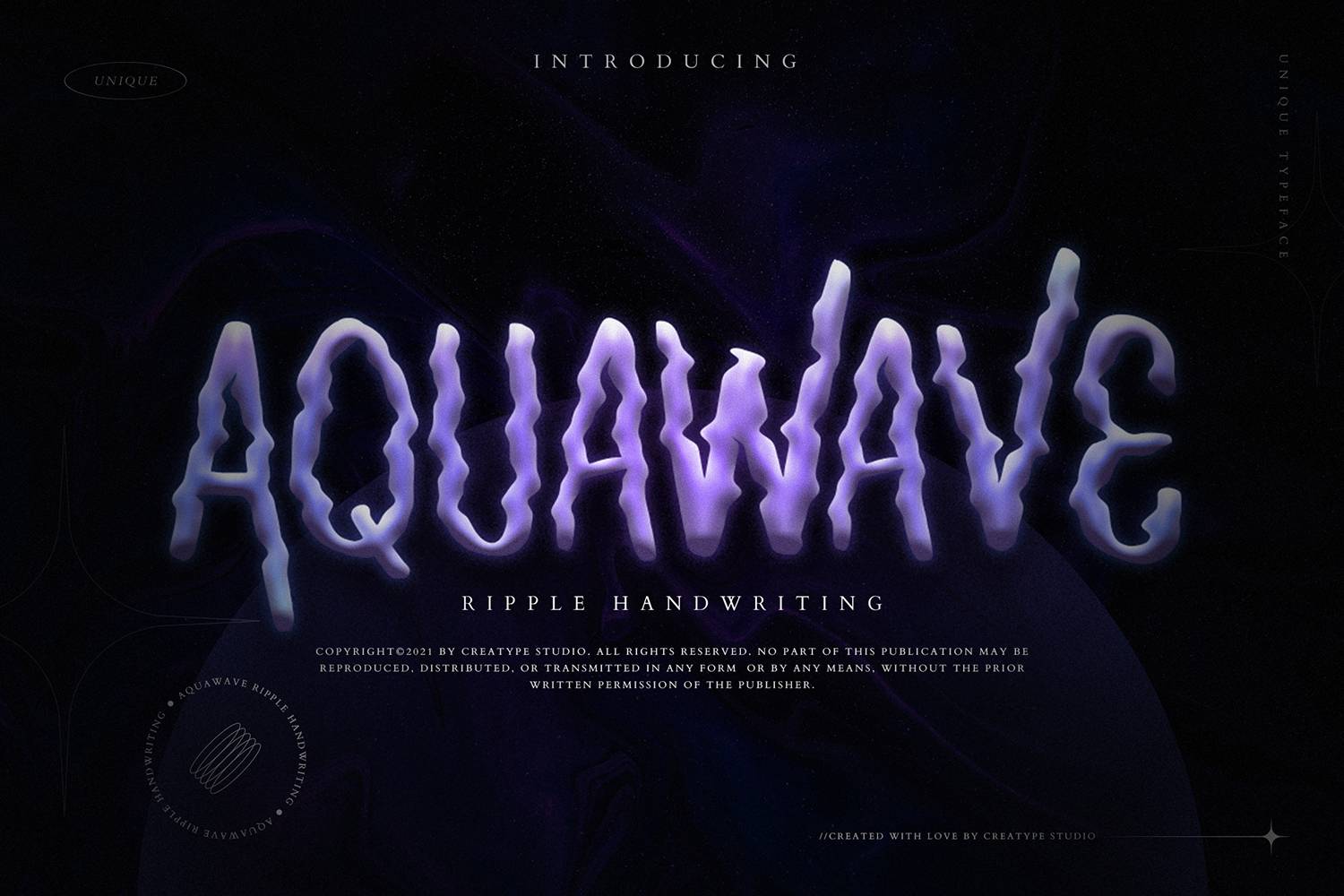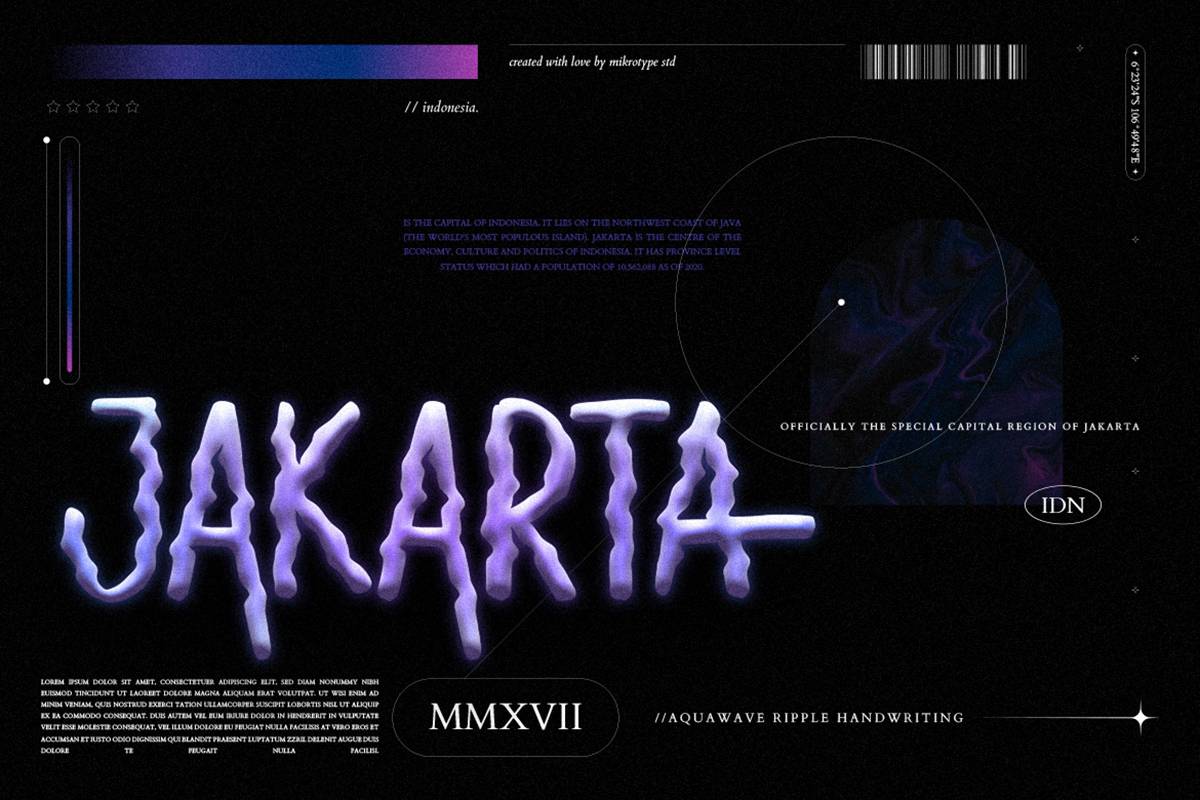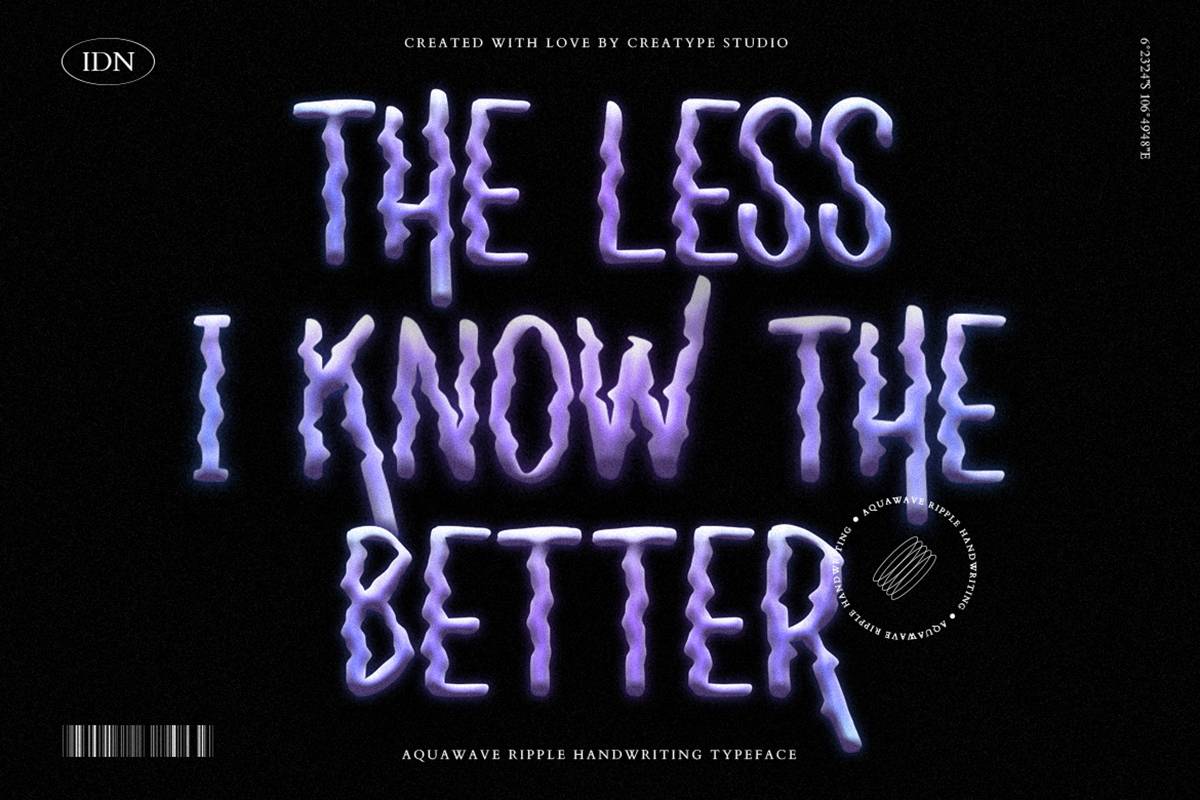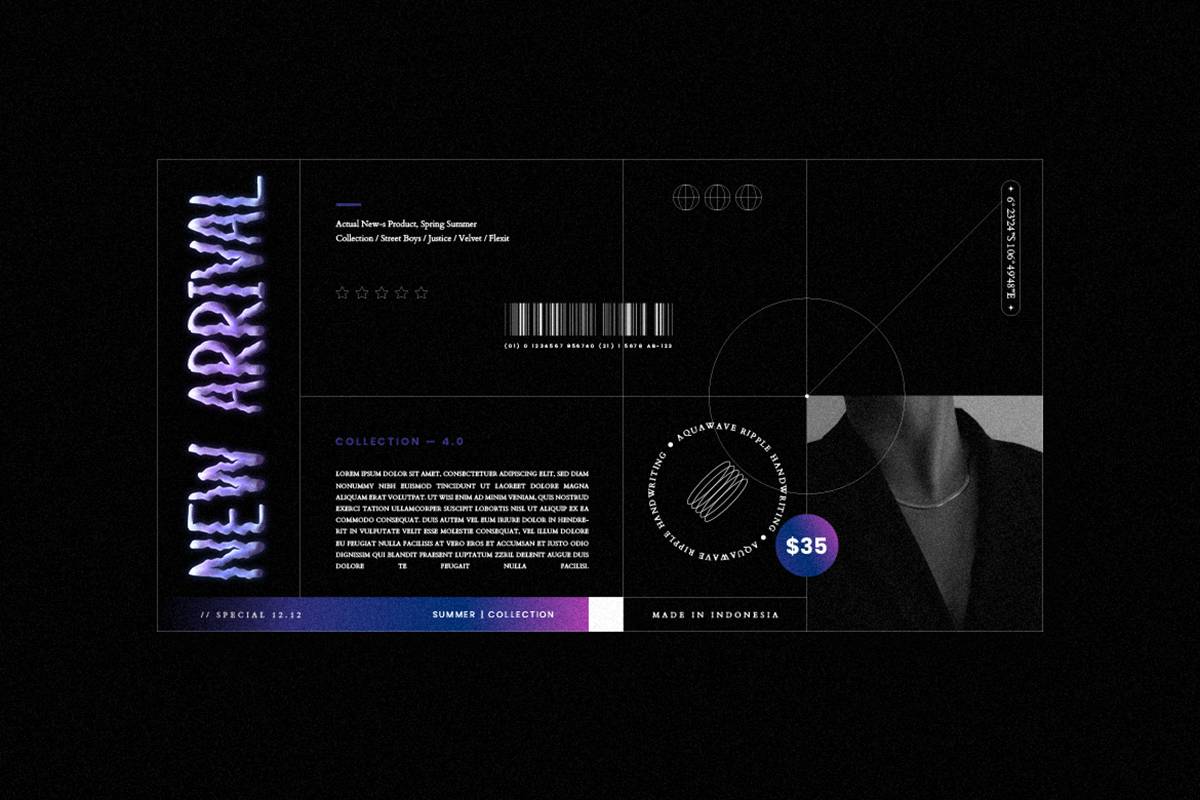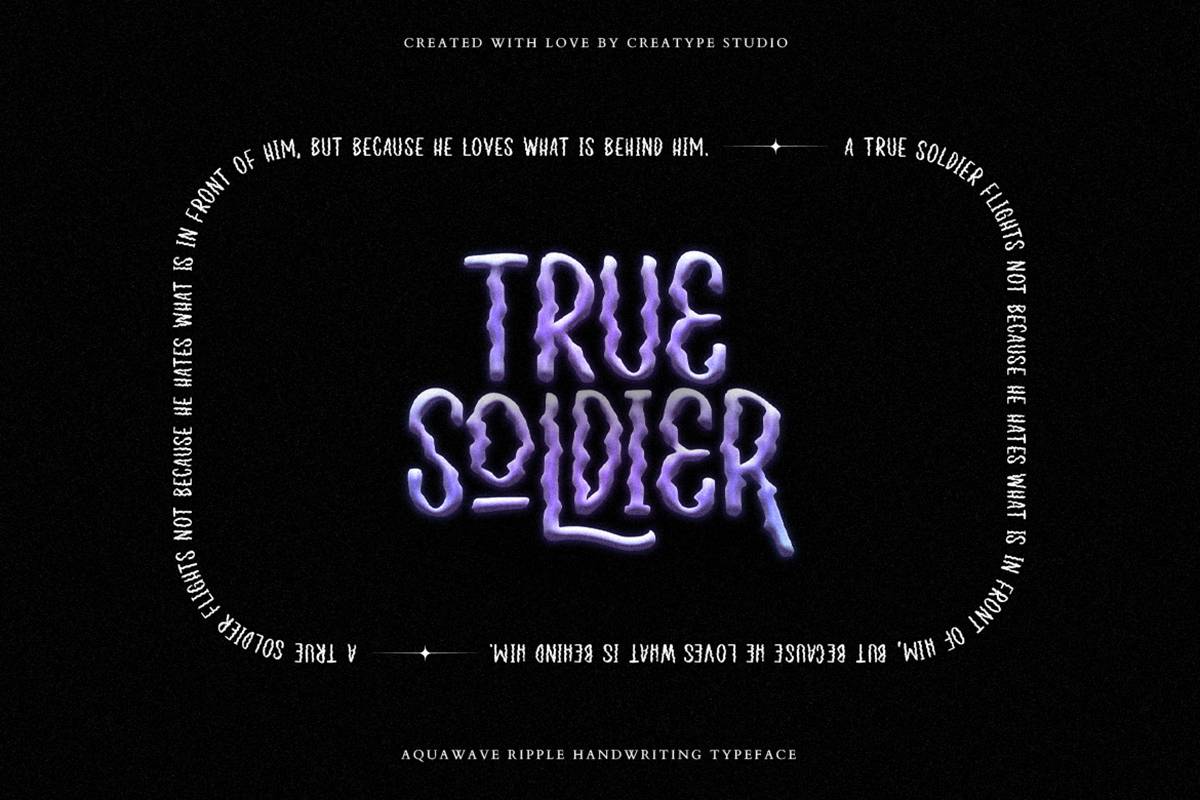
Aquawave is a distinct sans serif font featuring a textured, wavy stroke that gives it a playful, organic feel reminiscent of water or ripples. Its medium weight and condensed letterforms make it eye-catching and dynamic, ideal for creative headlines or branding that want to evoke movement, freshness, and a casual vibe. This unique style works best in posters, logos, and packaging where a bold, adventurous impression is desired.
Aquawave Font
About Aquawave Font
| Font family | Aquawave Font |
| Release date | 2021-05-23 |
| Designer | Mikro Type Std |